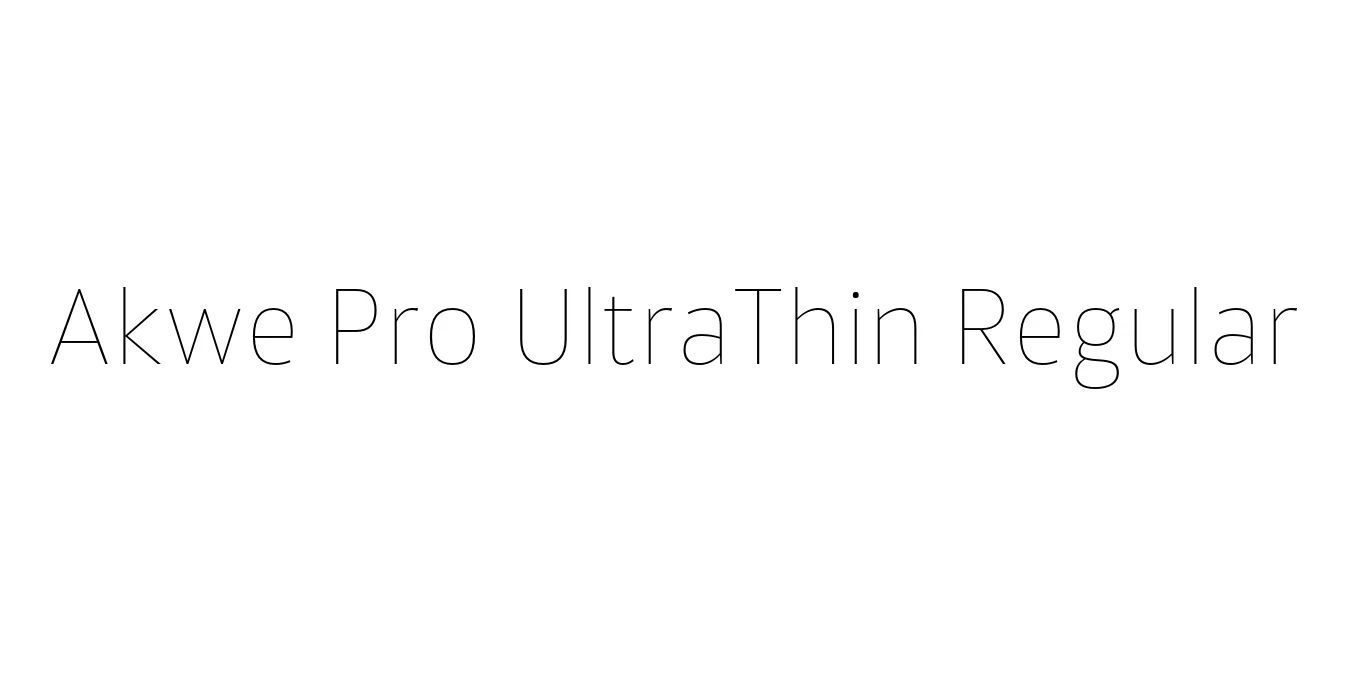
Akwe Pro UltraThin Regular
Designed by Jan Tonellato
Akwe Pro UltraThin Regular is a sophisticated contemporary sans-serif typeface crafted by the Italian designer Jan Tonellato. This specific weight is a standout member of the Akwe Pro family, which is known for its geometric precision and clean, rhythmic structure. The UltraThin variant is designed to embody elegance and lightness, making it an exceptional choice for designers who want to achieve a minimalist and ethereal aesthetic in their typography.
The font family was developed with a focus on versatility and legibility, featuring a wide range of weights and extensive OpenType support. Akwe Pro UltraThin is particularly effective in large display sizes where its delicate lines and sharp terminals can be fully appreciated. It has become a popular choice for high-end editorial work, luxury branding, and modern architectural presentations due to its professional and refined appearance.
Akwe Pro UltraThin Regular Best Uses
Perfect for high-fashion magazines and minimalist editorial layouts.
Ideal for creating sophisticated logos and brand identities for premium products.
Excellent for large, clean website hero sections and digital headings.
Suited for high-contrast print advertisements and minimalist posters.